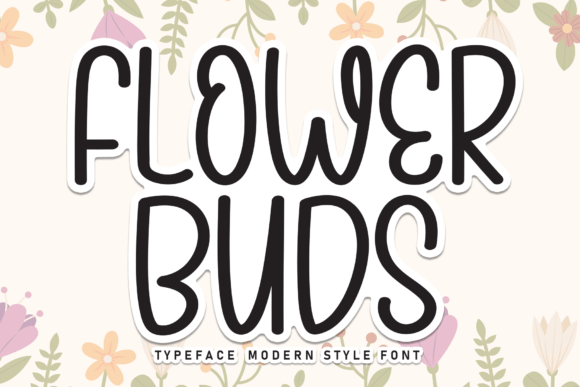
Journey into the world of Flower Buds Font, a whimsical and charming handwritten display font, crafted with love by william jhordy. Its sweet and friendly nature will add a touch of warmth and joy to any creation.
Picture this: a wedding invitation adorned with the elegant strokes of Flower Buds Font, inviting your guests to a day filled with love and laughter. Its playful curves and delicate swashes evoke a sense of romance and celebration, perfectly capturing the essence of your special day.
Beyond wedding invitations, Flower Buds Font is a versatile companion for a myriad of creative projects. Design eye-catching cards, posters, and social media graphics that exude a playful and inviting aura. Its friendly demeanor makes it perfect for children's books, adding a touch of magic to their imaginations.
With Flower Buds Font, your designs will blossom into a symphony of creativity. Its easy-to-read style ensures effortless readability, while its unique charm adds a touch of individuality to your creations. Whether you're a seasoned designer or just starting your creative journey, Flower Buds Font will be your trusted companion, helping you turn your ideas into captivating realities.